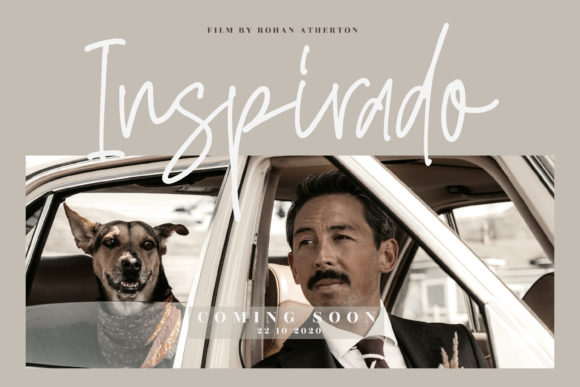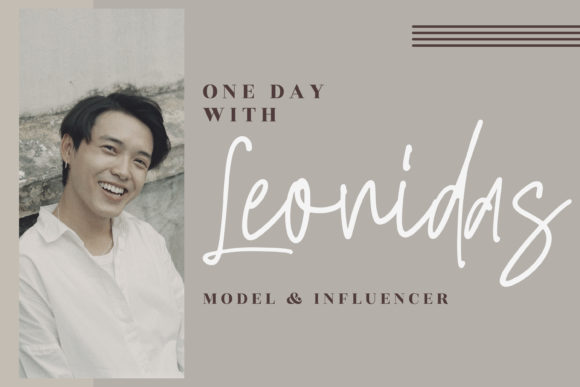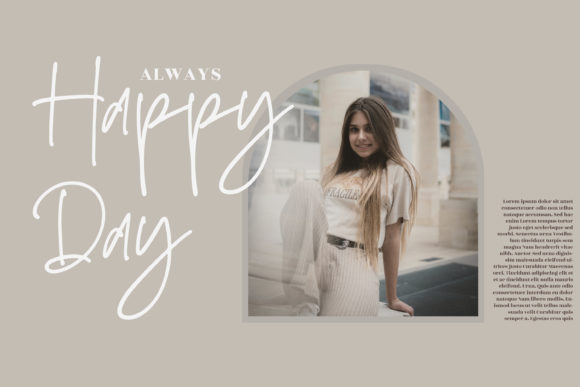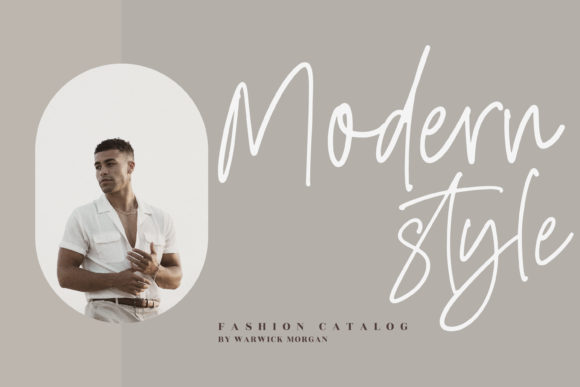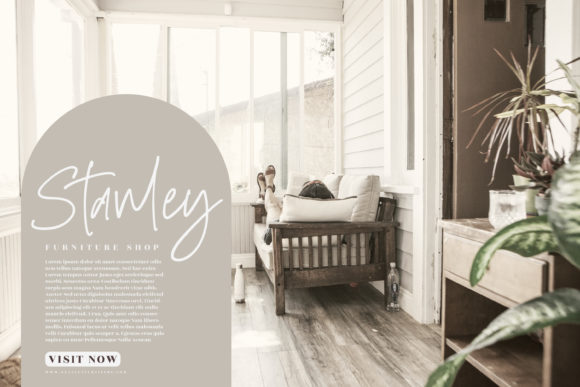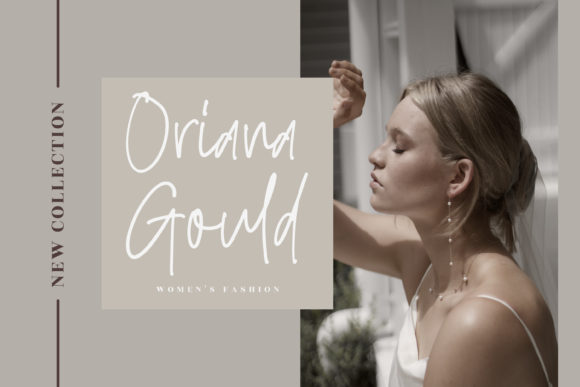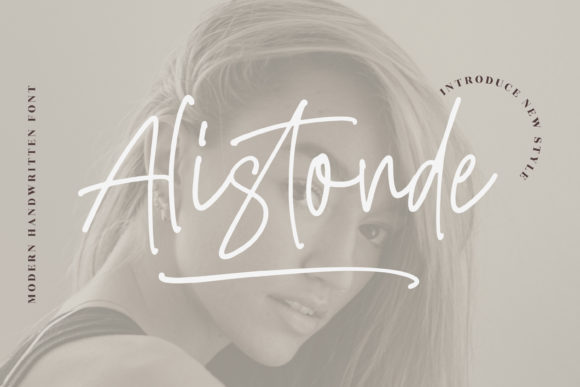
Introducing Alistonde Font: Elevate Your Designs with Elegance and Sophistication
In the world of typography, few fonts manage to capture the essence of luxury and sophistication as effortlessly as Alistonde. This exquisite calligraphy typeface is designed to add a touch of elegance to any design project, making it a must-have for designers and crafters seeking to elevate their creations. With its delicate lines and dancing characters, Alistonde is poised to become the go-to font for those who aim to infuse their work with a sense of high-end style.
The Distinctive Charm of Alistonde
Alistonde’s unique charm lies in its fashionable and delicate calligraphy style. Each character seems to dance along the baseline, creating a fluid and dynamic visual effect that is both captivating and sophisticated. This distinctive feature makes Alistonde an excellent choice for a wide range of design projects, from luxury branding and high-end product packaging to elegant stationery and stylish digital content.
One of the standout features of Alistonde is its PUA (Private Use Area) encoding. This means that users can access all the amazing glyphs and ligatures with ease, allowing for greater flexibility and creativity in design. PUA encoding ensures that the full range of characters can be used without any complicated processes, making it straightforward to incorporate the intricate details and flourishes that make Alistonde so special.
Whether you’re a professional designer or a passionate crafter, Alistonde offers a wealth of possibilities for creative expression. Designers can use Alistonde to add a touch of sophistication to client projects, while crafters can incorporate the font into their DIY projects, such as handmade cards, scrapbooking, and other paper crafts. The versatility of Alistonde makes it an invaluable addition to any creative toolkit.
Applications of Alistonde
The applications of Alistonde are as varied as they are exciting. Here are a few ideas to get you started:
- Luxury Branding: Use Alistonde to create elegant logos, business cards, and letterheads that exude luxury and sophistication.
- Digital Content: Add a touch of class to your blog posts, social media graphics, and website headers with Alistonde’s refined calligraphy.
- Stationery: Design beautiful, one-of-a-kind stationery sets, including invitations, thank you cards, and journals.
- Packaging: Elevate your product packaging with Alistonde’s elegant typography, perfect for high-end cosmetics, jewelry, and gourmet food products.
Tips for Getting the Most Out of Alistonde
To truly make Alistonde shine in your designs, consider the following tips:
- Experiment with Ligatures: Take advantage of Alistonde’s ligatures to create unique and flowing text that captures the eye.
- Play with Sizes: Use varying font sizes to emphasize certain words or phrases, adding depth and interest to your designs.
- Combine with Images: Pair Alistonde with elegant images or illustrations to create visually stunning compositions.
Alistonde is more than just a font – it’s a design statement. With its fashionable and delicate calligraphy, PUA encoding for easy access to glyphs and ligatures, and versatility across a range of projects, Alistonde is set to become an indispensable part of your creative arsenal. Whether you’re looking to add a touch of luxury to client projects or seeking to elevate your personal crafting endeavors, Alistonde offers the perfect blend of elegance and sophistication. Discover the transformative power of Alistonde and take your designs to new heights of style and refinement.